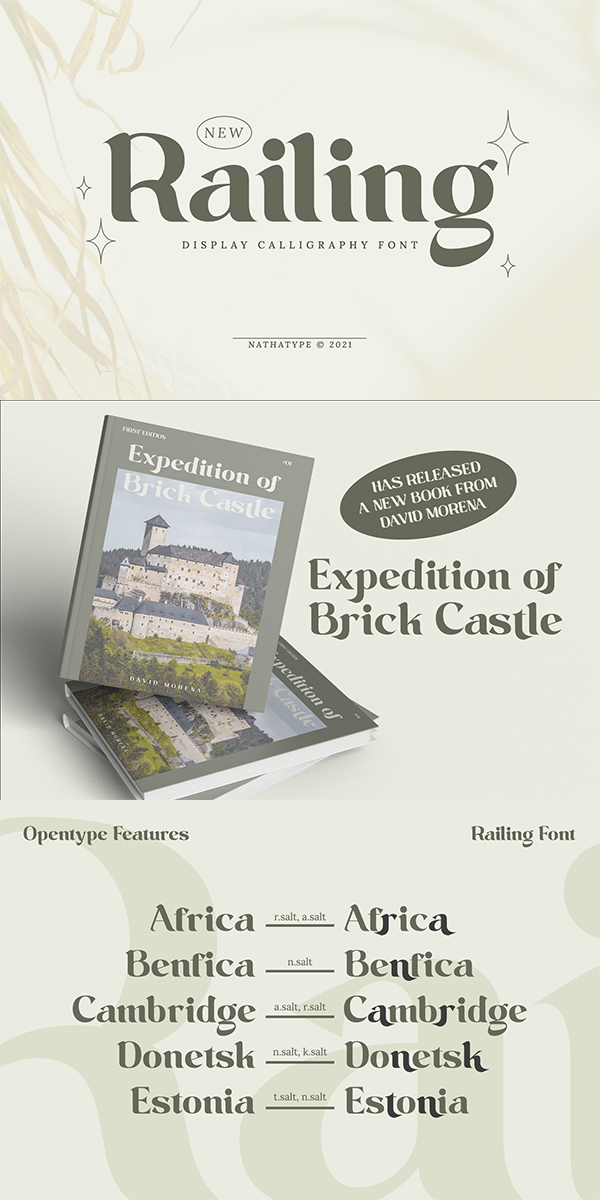
Railing Font
About Railing
Railing-A Script Font
Railing a gorgeous font designed with strong outlines and fat strokes to bring your branding to life and add a touch of retro and fun. This font features thick and angular letters that easy on the eyes and nice to look while it’s also easy to read. Railinv becomes more special with extruding version option. Perfect to create amazing headings, logos, menus, social media graphics, and many more.